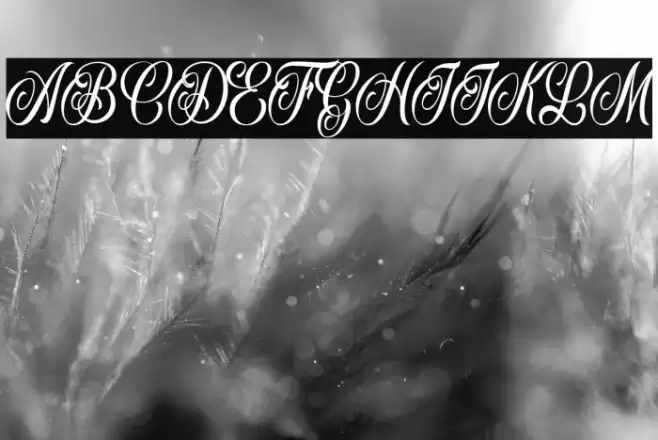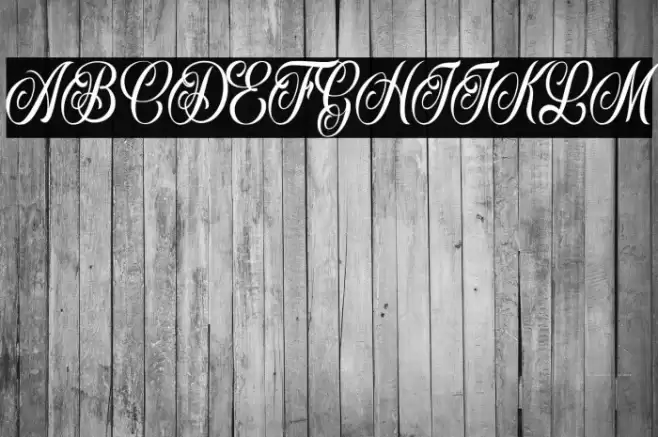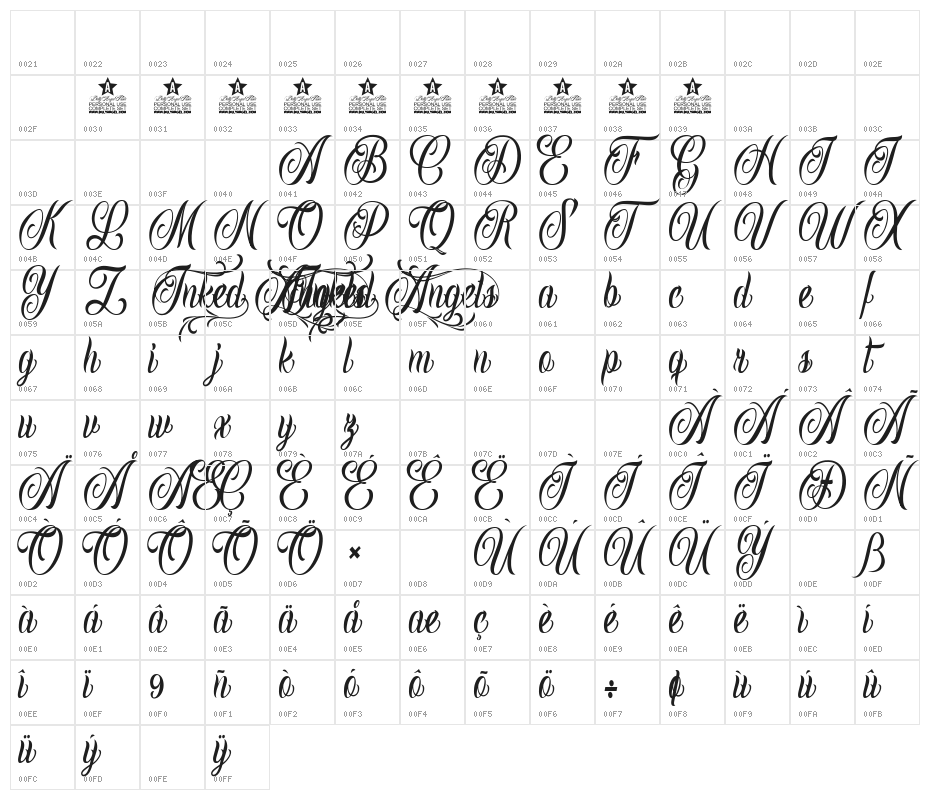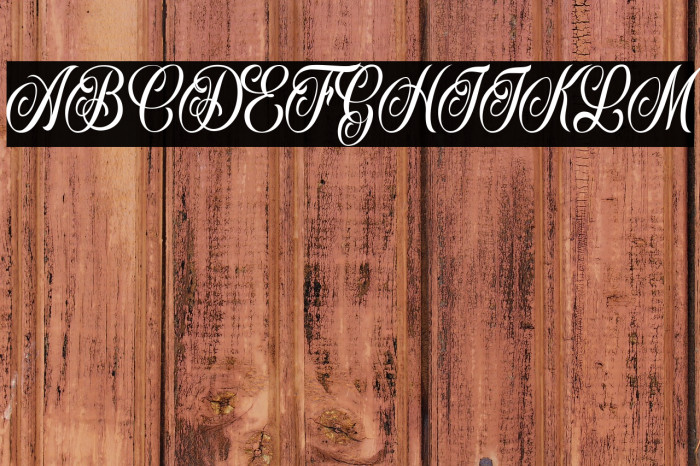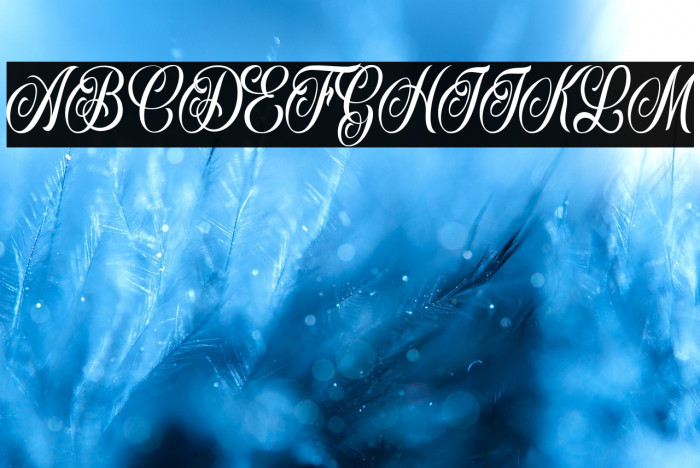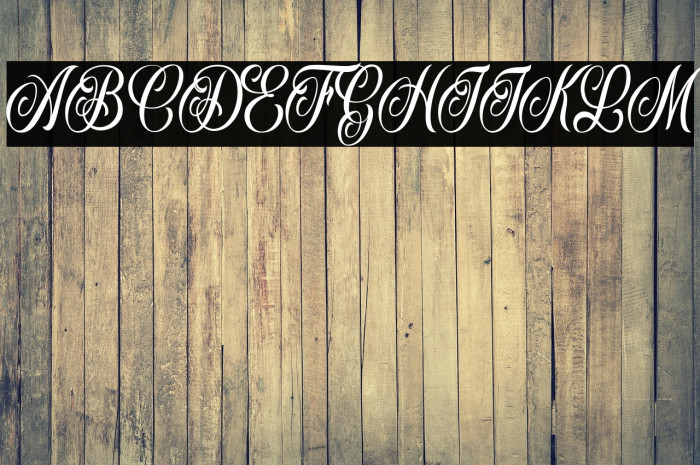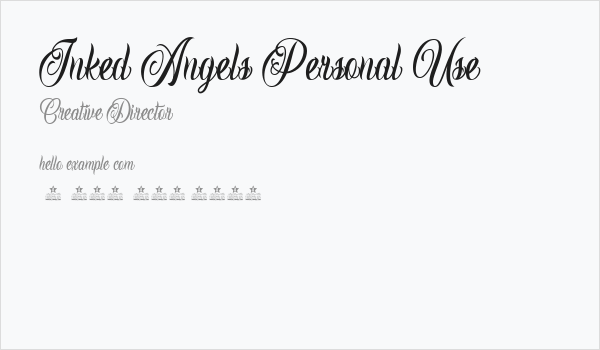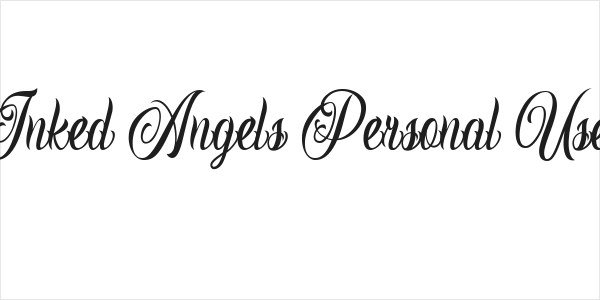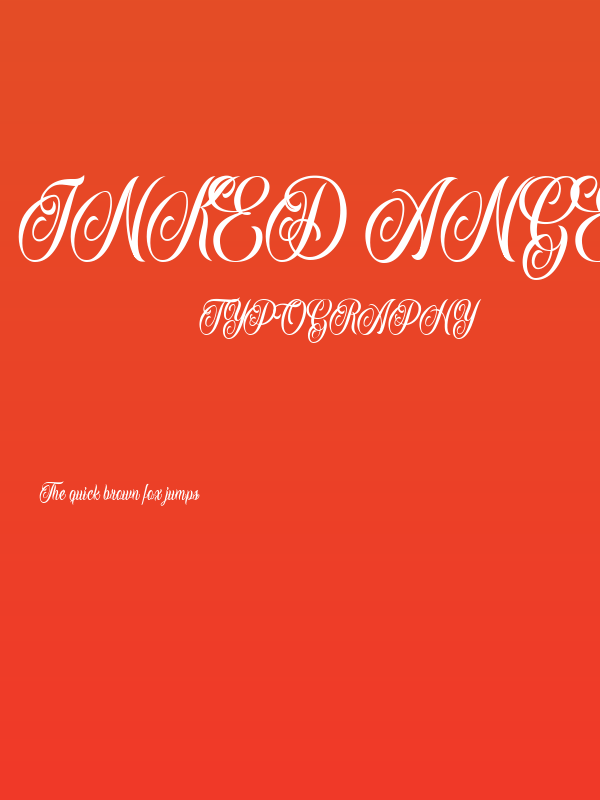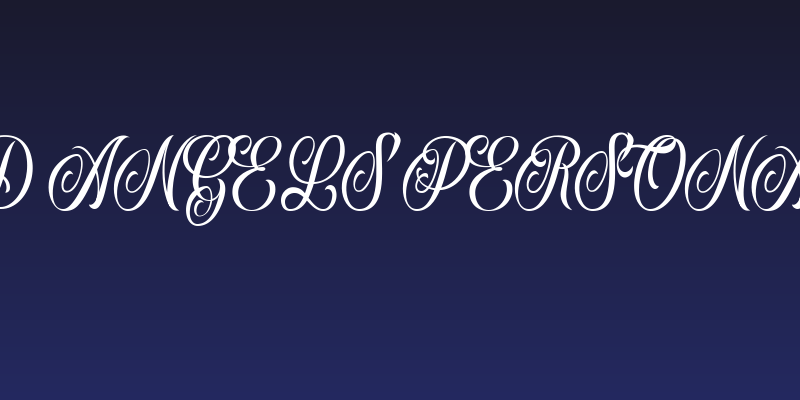
Inked Angels Personal Use Font
Inked Angels Personal Use Description
This font features an elegant and flowing script style, characterized by its intricate and ornate letterforms. The uppercase letters are particularly elaborate, with swirling lines and decorative loops that give a sense of sophistication and grace. The lowercase letters maintain a consistent style, with smooth curves and a slightly condensed appearance. The font's overall design is reminiscent of calligraphic handwriting, making it suitable for projects that require a touch of elegance and formality. The characters are well-spaced, ensuring readability while maintaining the decorative nature of the script.
An elegant, flowing script font with intricate, ornate letterforms from Uncategorized fonts.
- Proposed Projects: Ideal for wedding invitations, elegant branding, greeting cards, and formal event materials.
- Use Case: Logos, Invitations, Decorative text